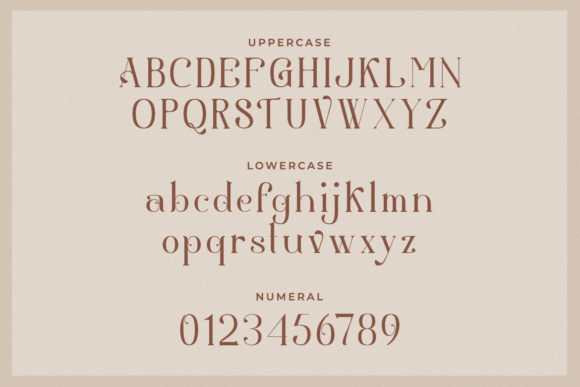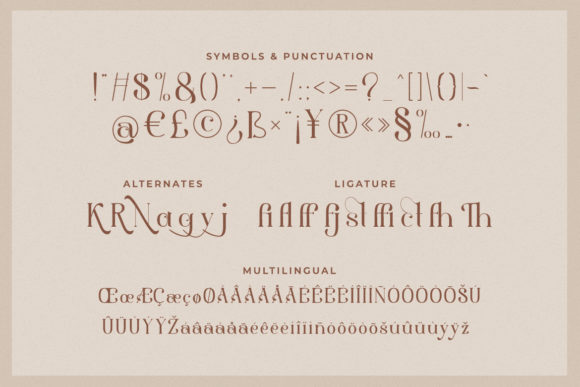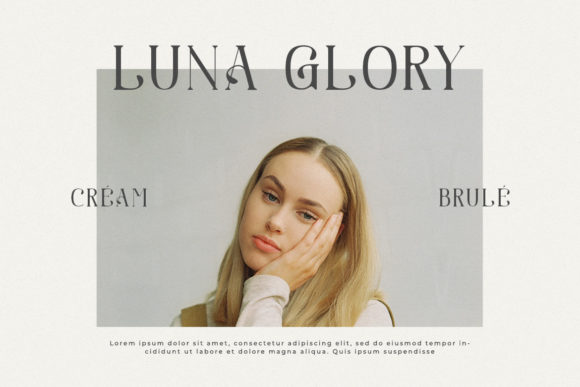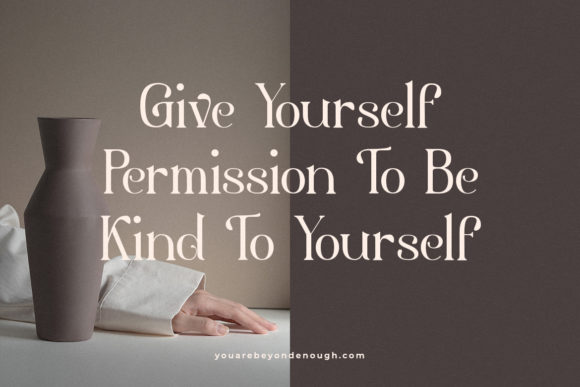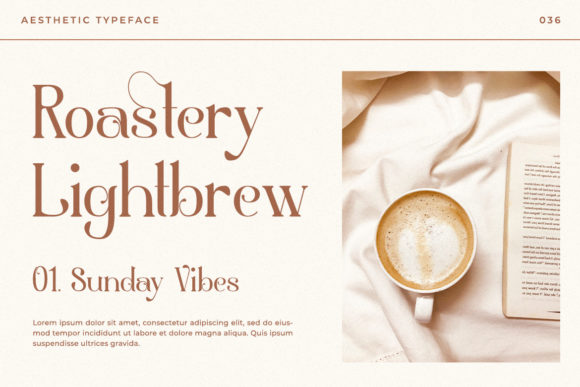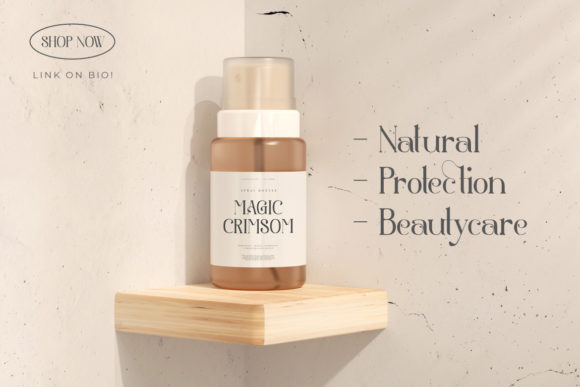
The Perfect Font for Your Next Design Project
You know that moment when you’re scrolling through social media, and a beautiful design catches your eye? You can’t help but stop and admire the way the words flow, the colors blend, and the overall aesthetic (pun intended) of the post. That’s the magic of great design, and it all starts with the right font. In this article, we’ll be talking about the Aesthetic Font, a modern serif font that’s perfect for creating stunning designs.
The Aesthetic Font is designed to be simple, yet elegant. Its minimalist feel makes it incredibly versatile, allowing you to use it for a wide range of projects, from logos and branding to digital art and even print materials. As a designer, you know how valuable a great font can be in elevating your work and making it stand out. The Aesthetic Font is a valuable addition to any designer’s toolkit, offering a fresh and modern look that’s sure to impress.
Aesthetic Font Key Features
- Font Family: Aesthetic Font is a unique, hand-drawn font family designed for various typography needs.
- Character Count: Aesthetic Font includes over 400 characters, including uppercase and lowercase letters, numbers, punctuation marks, and special symbols.
- Unique Characteristics: Aesthetic Font features intricate, hand-drawn details and subtle texture effects, giving it a distinctive and elegant appearance.
Aesthetic Font Review
I’ve had the chance to work with Aesthetic Font for a while now, and here’s my honest take.
- Clean lines and simplicity**: The font is indeed visually appealing, with clean lines and a minimalist aesthetic that makes it perfect for modern designs.
- Highly customizable**: Aesthetic Font offers a wide range of customization options, allowing you to tweak it to fit your specific design needs.
- Wide language support**: The font supports a vast number of languages, making it a great choice for global projects.
- May not work well for body text**: While Aesthetic Font looks stunning for headings and titles, it may not be the best choice for large blocks of body text due to its relatively small character set.
- Limited italics and bold options**: The font’s italics and bold variations may not be as robust as other fonts, which could limit its use in certain situations.
Overall, Aesthetic Font is a great choice for designers who want a modern, visually appealing font for their projects. However, it may not be the best fit for every situation, especially when it comes to body text and extensive customization needs.
Aesthetic Font is commonly used for:
- Blog post headers
- Business card design
- Wedding invitations
Alternatives to Aesthetic Font for Designers
Great Vibes is a beautiful, elegant script font perfect for creating a sense of sophistication and luxury. It’s ideal for use in branding, advertising, and editorial design. When to use: Luxury brands, high-end products, and creative projects that require a touch of elegance.
Compared to Aesthetic Font, Great Vibes has a more refined and polished look, making it suitable for high-end applications. While Aesthetic Font has a more playful and whimsical feel, Great Vibes exudes sophistication and refinement.